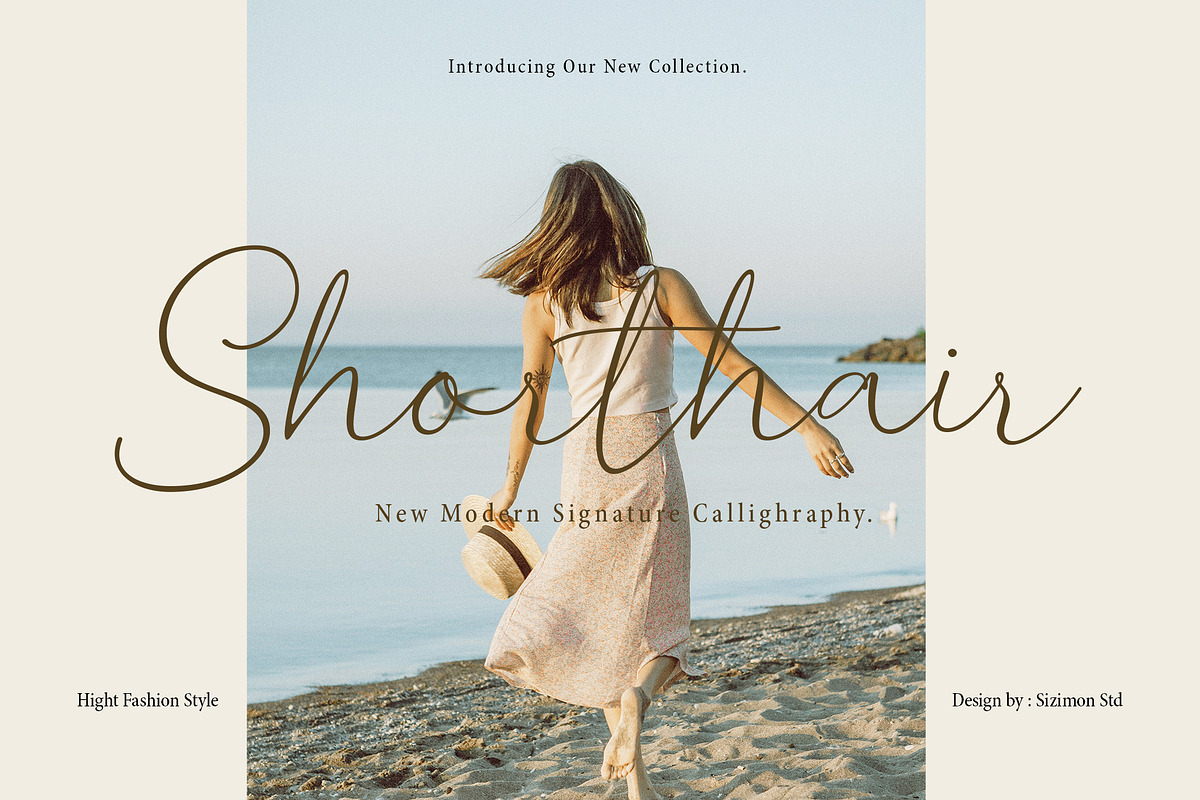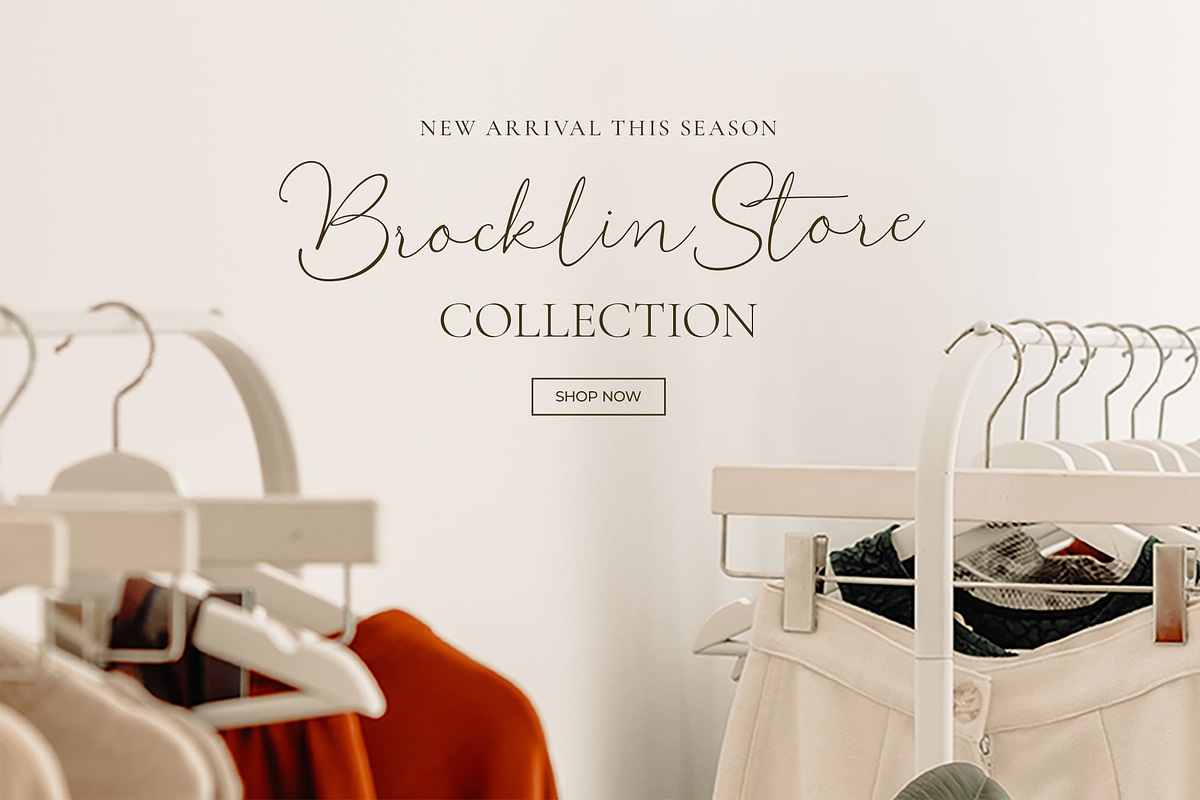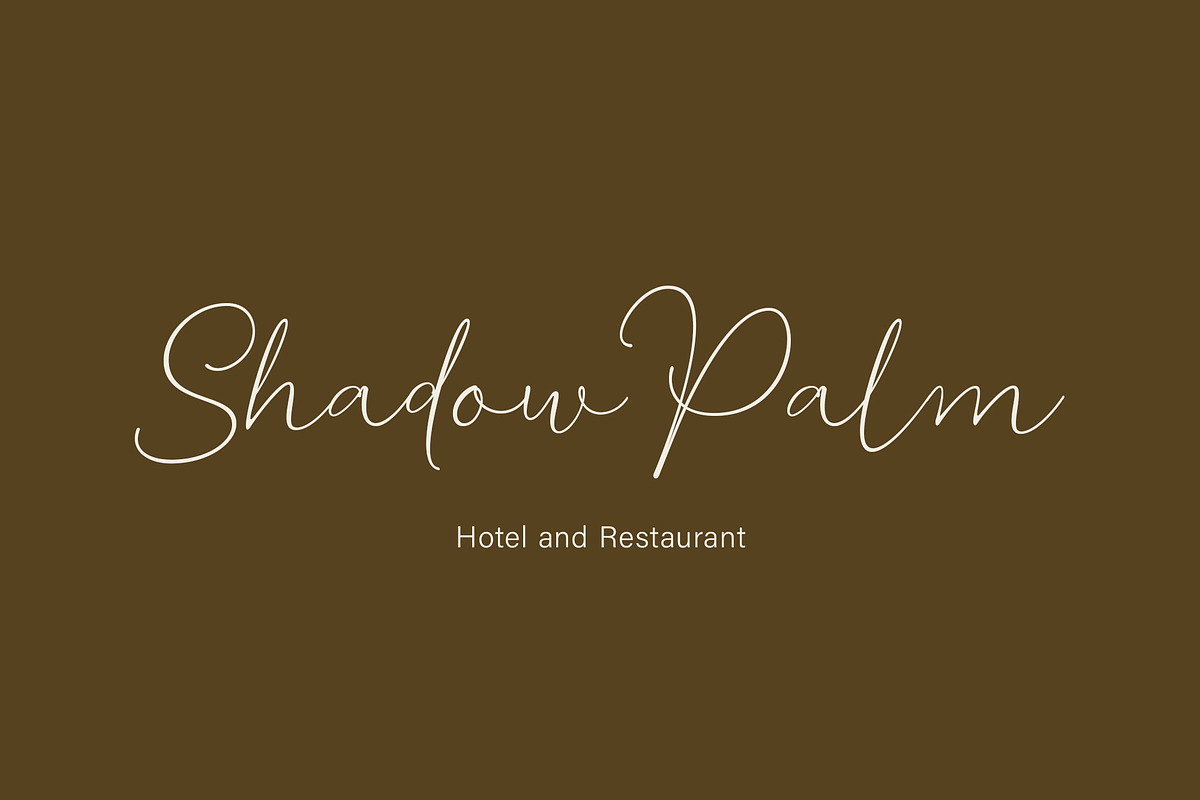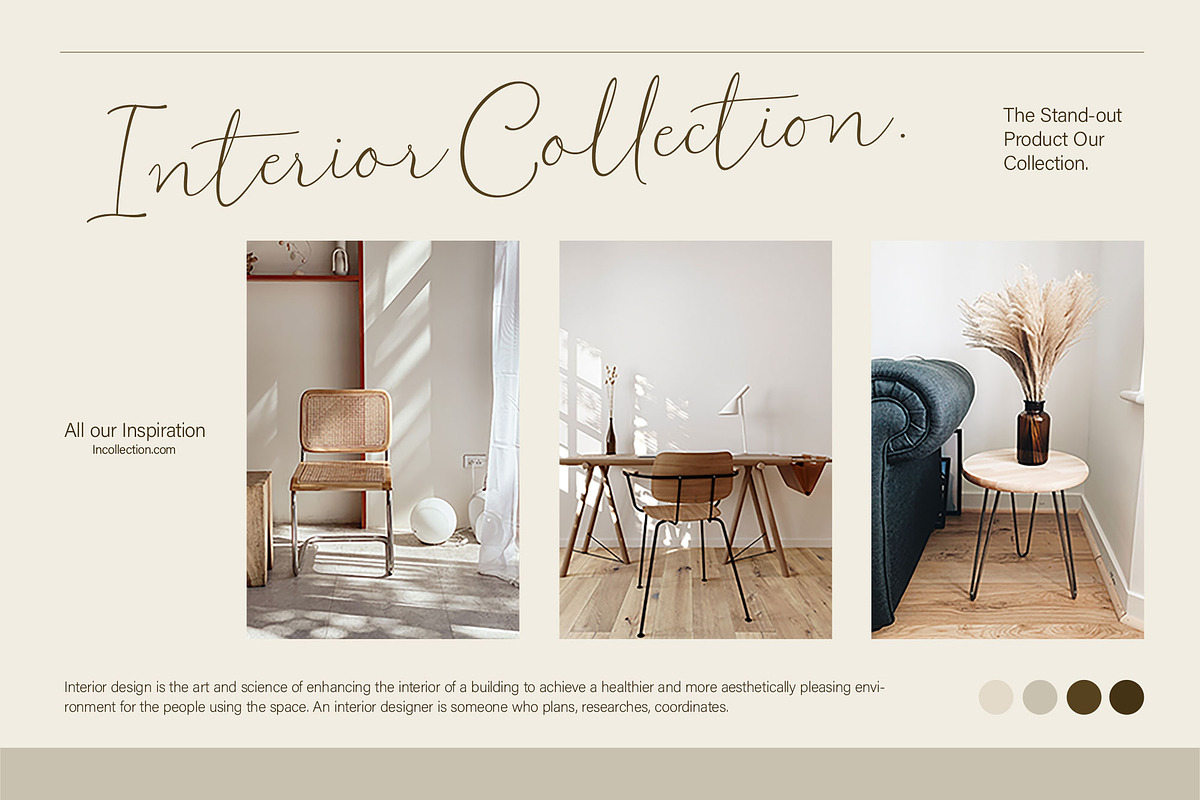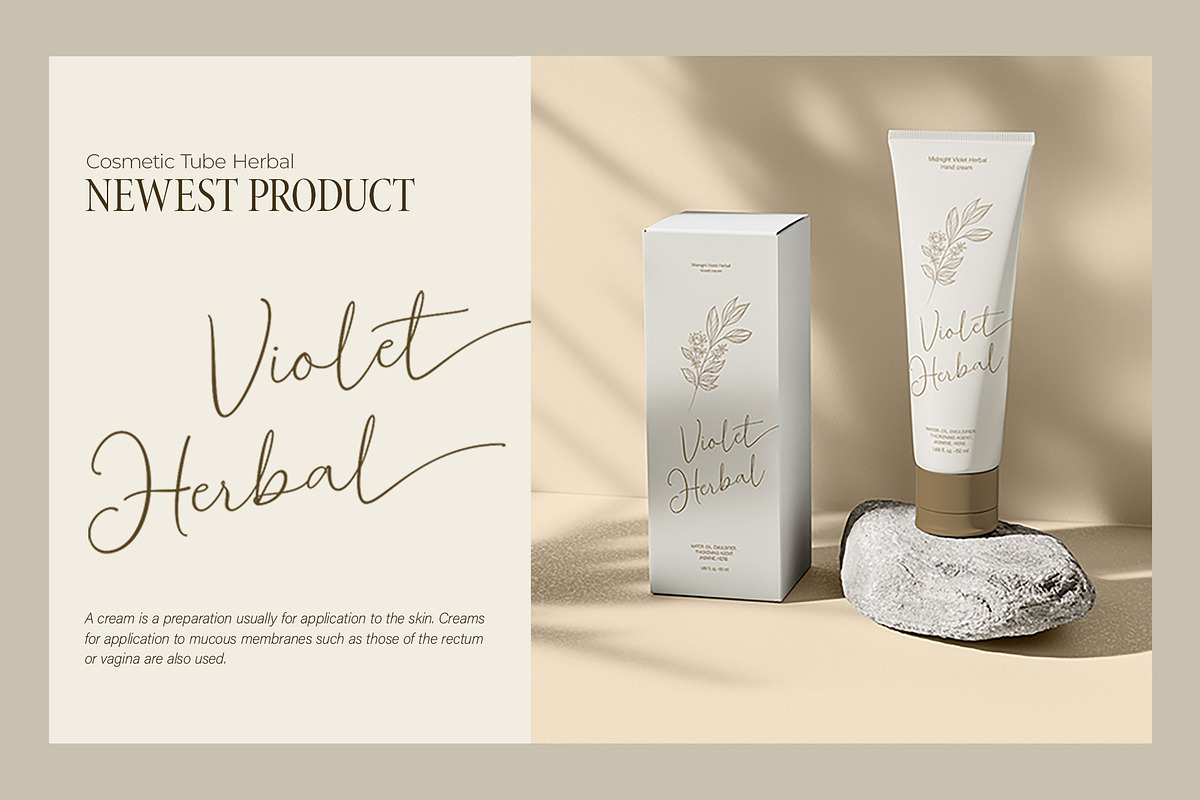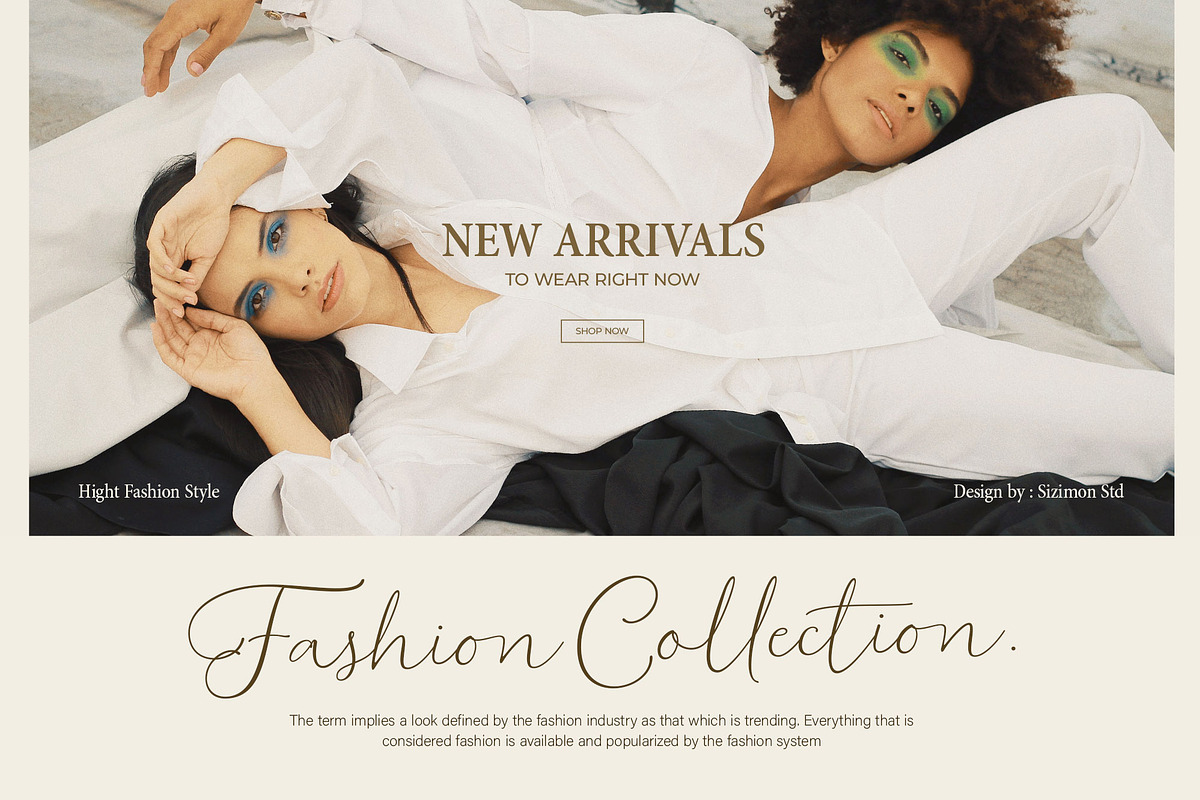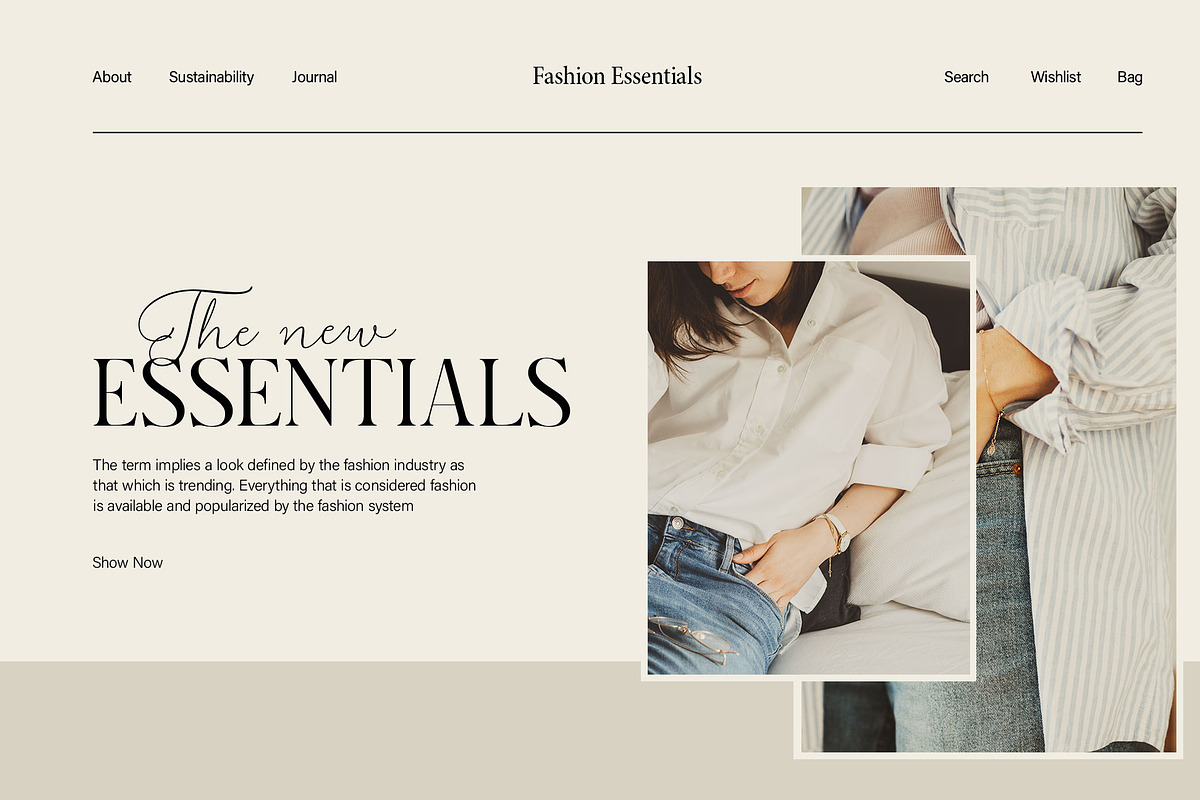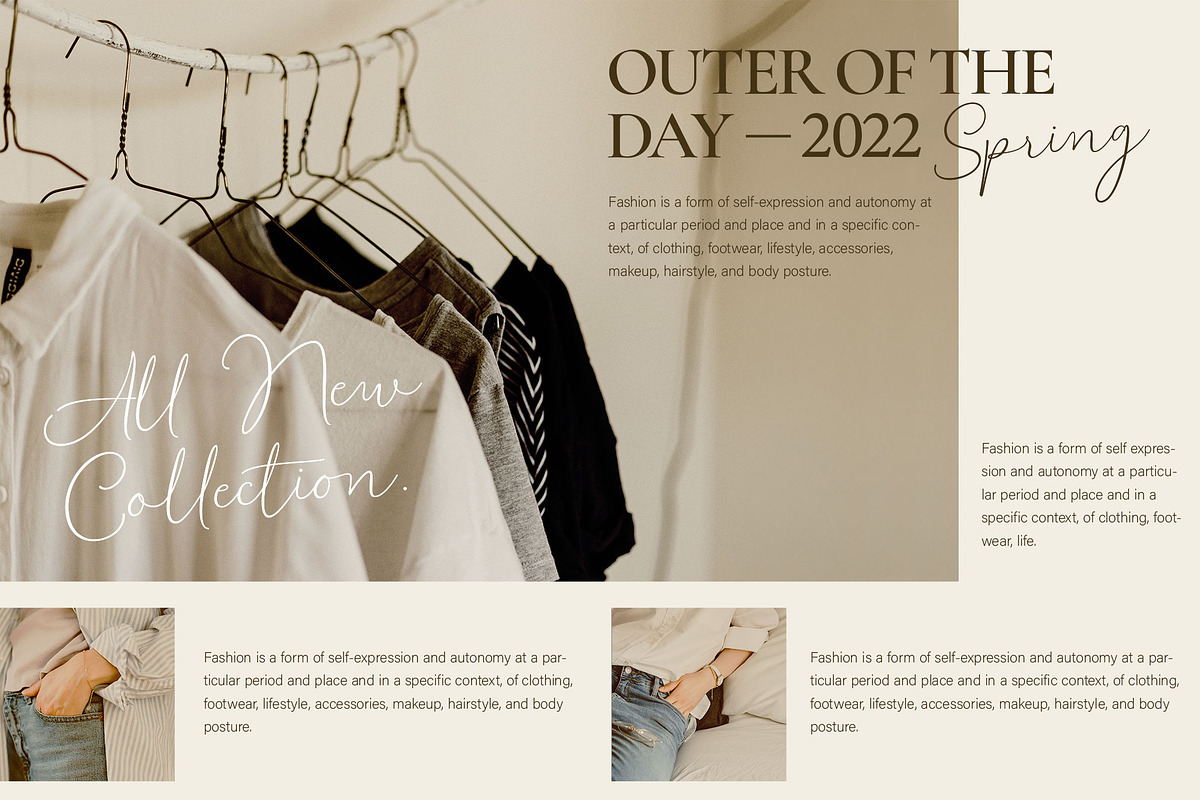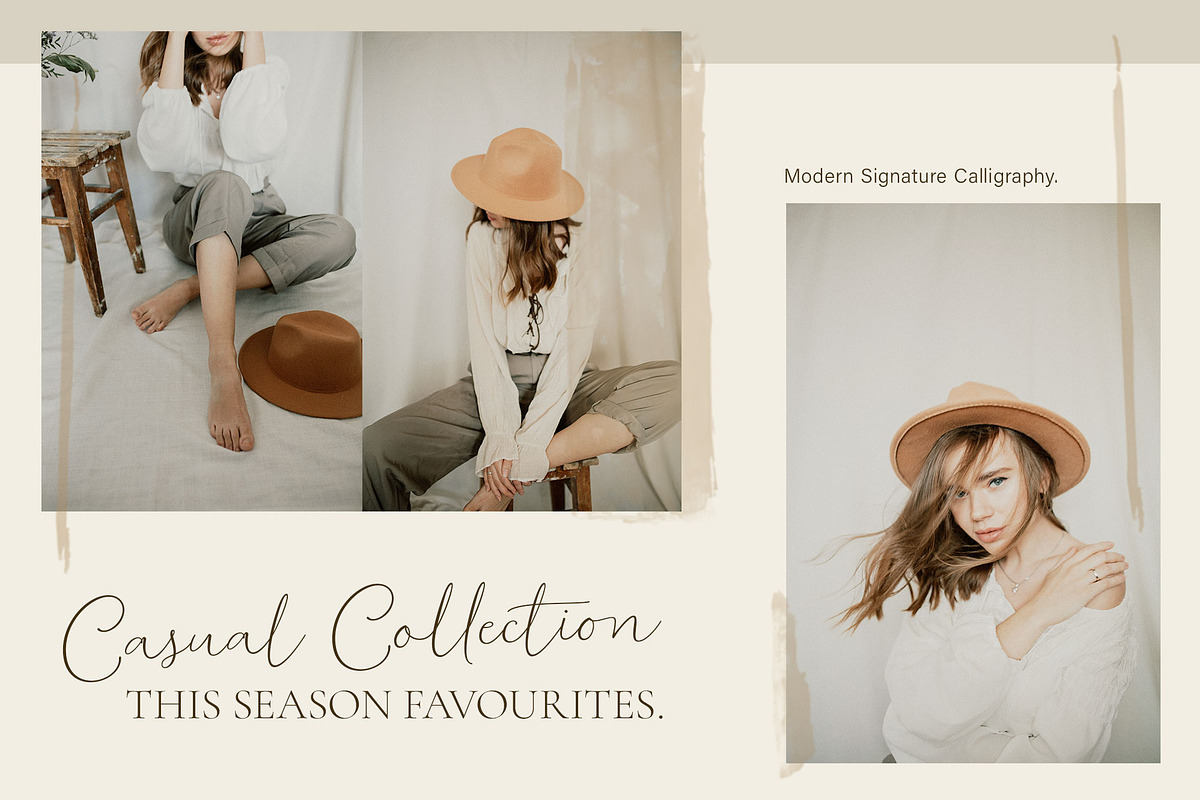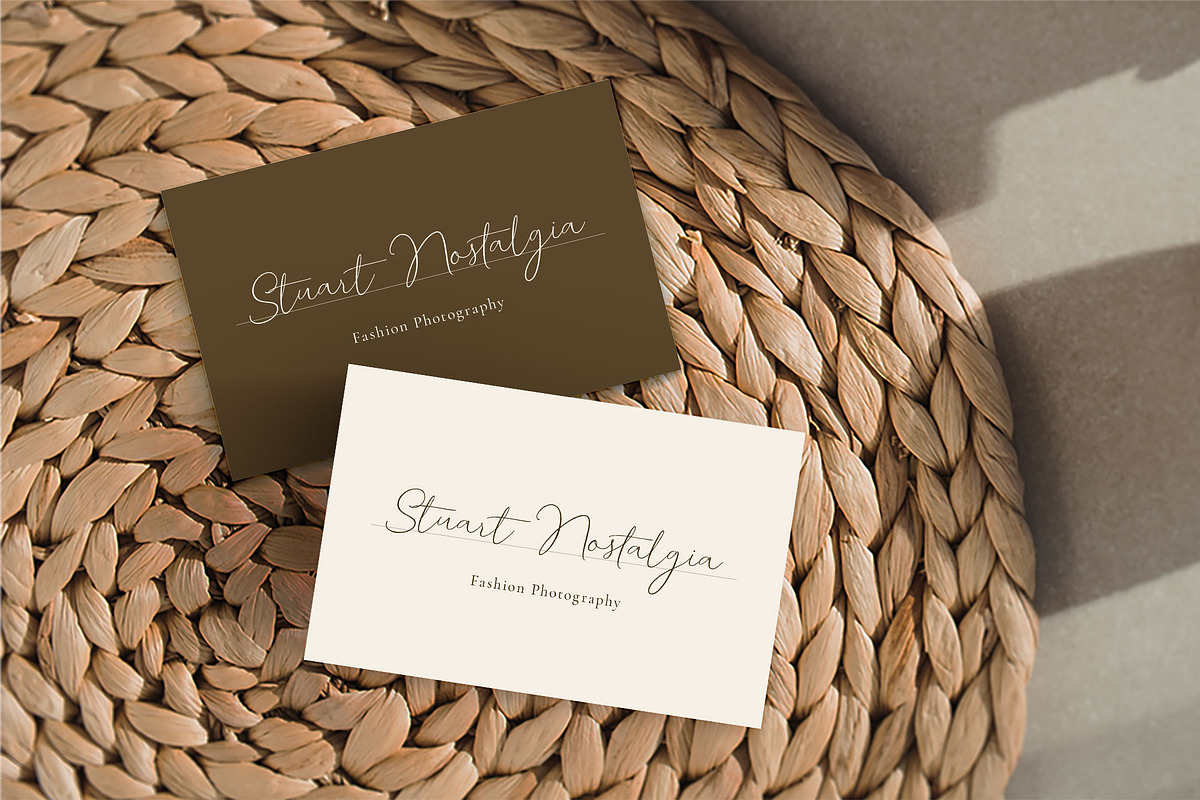
Shorthair Modern Script Font
Introducing our product Shorthair Signature! signature with which you can achieve a Cursive lettering feeling. It is slender, feminine and friendly. Shorthair Signature is perfect for fashion, e-commerce brands, trend blogs, or any business that wants to appear classy and chic.
- Uppercase, lowercase, numeral, punctuation & Symbol
- Stylistic alternates
- Stylistic Set01 - Stylistic Set02